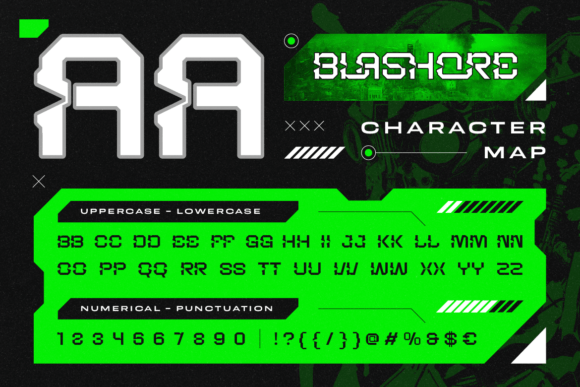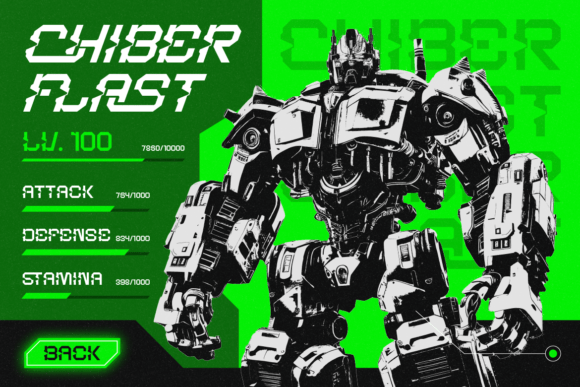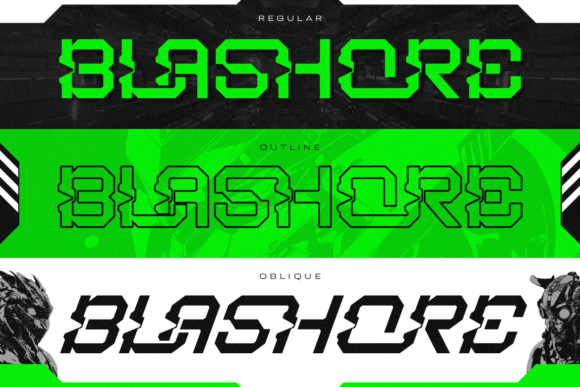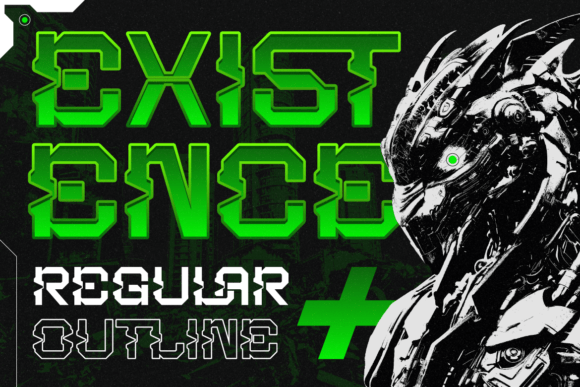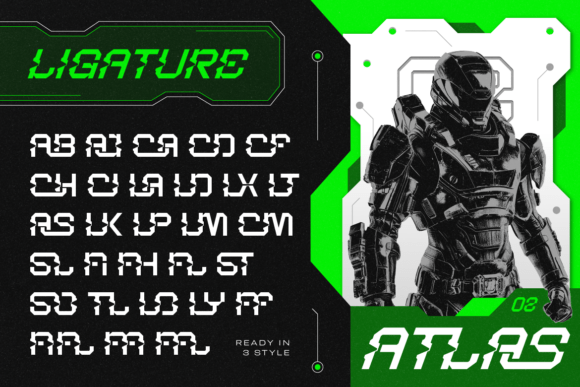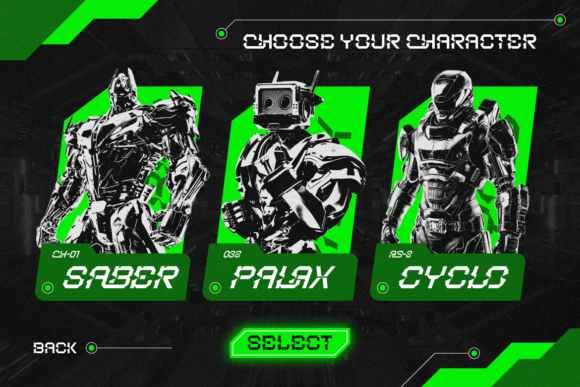
Introducing Blashore Font: The Ultimate Modern Futuristic Display Font
In the world of digital design, a font can make all the difference in creating a lasting impression. If you’re looking for a font that exudes power, aggression, and a strong tech vibe, look no further than Blashore Font. This modern futuristic display font is specifically designed for bold, high-energy visuals that demand attention.
Key Features of Blashore Font
Blashore Font boasts several key features that make it the perfect choice for designers and crafters looking to create stunning visuals. Some of its notable features include:
- Sharp Angles: Blashore’s sharp angles give it a cutting-edge look that’s perfect for futuristic designs.
- Solid Structure: The font’s solid structure provides a sense of stability and strength, making it ideal for designs that require a powerful presence.
- Strong Tech Vibe: Blashore’s tech-inspired design makes it a natural fit for gaming UI, esports branding, cyberpunk posters, and sci-fi designs.
Perfect for High-Impact Designs
Blashore Font is specifically designed for use in high-impact designs where a strong digital presence is required. Some of the ideal applications for Blashore include:
- Gaming UI: Create stunning in-game visuals with Blashore’s bold, futuristic design.
- Esports Branding: Give your esports team a professional, high-energy look with Blashore’s powerful font.
- Cyberpunk Posters: Transport your audience to a futuristic world with Blashore’s sharp, edgy design.
- Sci-Fi Designs: Add a touch of futurism to your sci-fi designs with Blashore’s otherworldly font.
- Tech Logos: Create a strong, memorable brand identity with Blashore’s bold, tech-inspired design.
- Futuristic Headlines: Make your headlines stand out with Blashore’s striking, high-energy font.
Flexible Design Options with Multiple Styles
Blashore Font comes with three distinct styles to give you flexibility in your designs:
- Regular: The standard Blashore font, perfect for bold, high-impact designs.
- Outline: Add depth and contrast to your designs with the outline style.
- Oblique: Create a sense of motion and energy with the oblique style.
Why Choose Blashore Font?
So why choose Blashore Font for your next design project? Here are just a few reasons:
- Instant Impact: Blashore’s bold, futuristic design makes an instant impact on your audience.
- Flexibility: With three distinct styles, you can experiment with different looks and feels to find the perfect fit for your design.
- High-Quality Design: Blashore Font is designed to the highest standards, ensuring a crisp, clean look in any application.
In conclusion, Blashore Font is the ultimate modern futuristic display font for designers and crafters looking to create bold, high-energy visuals. With its sharp angles, solid structure, and strong tech vibe, Blashore is perfect for a wide range of applications, from gaming UI to tech logos. Its flexible design options, including Regular, Outline, and Oblique styles, give you the freedom to experiment and find the perfect look for your design. So why wait? Try Blashore Font today and take your designs to the next level!